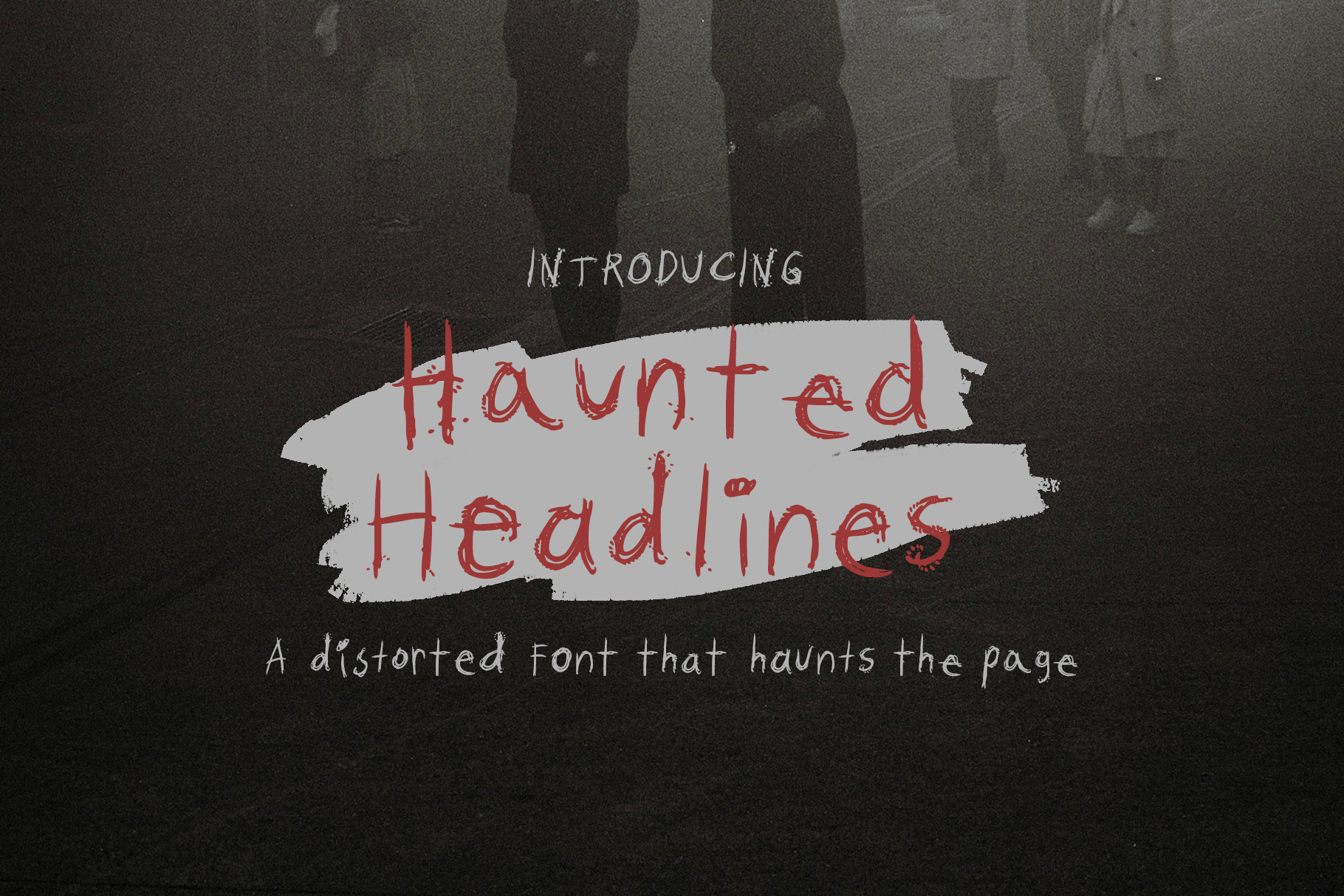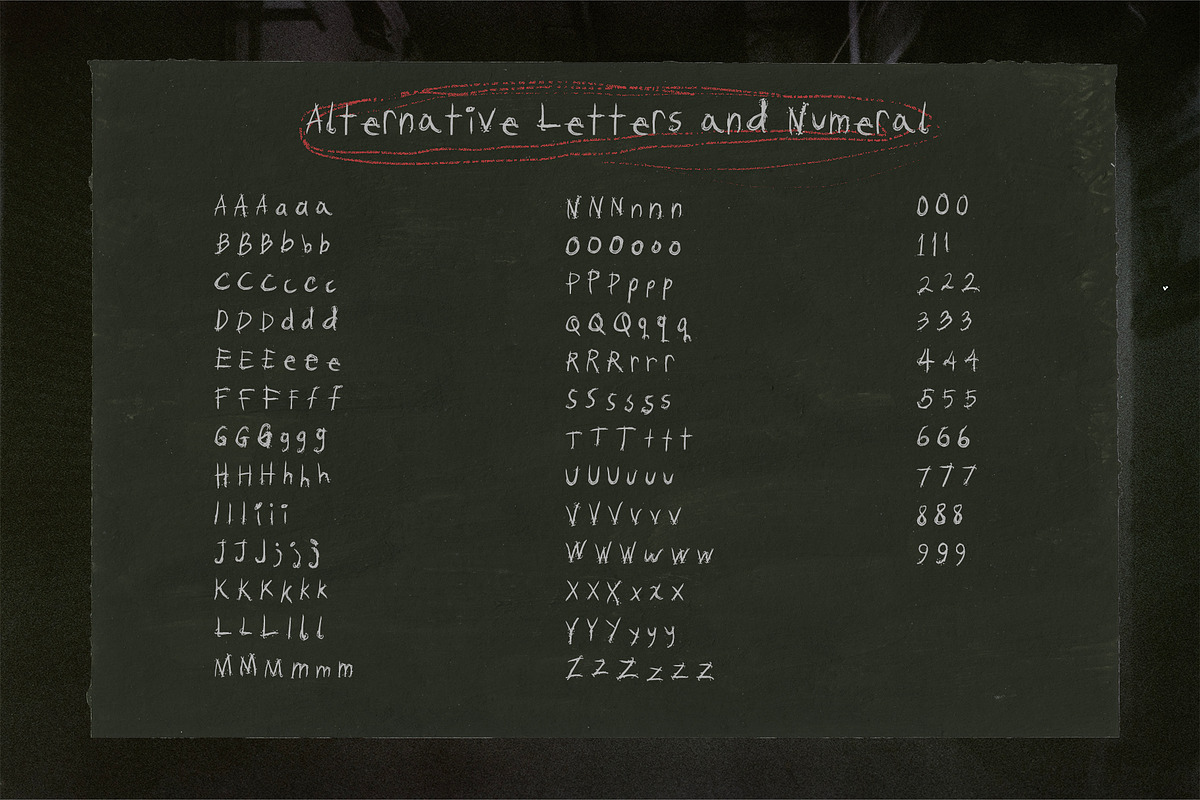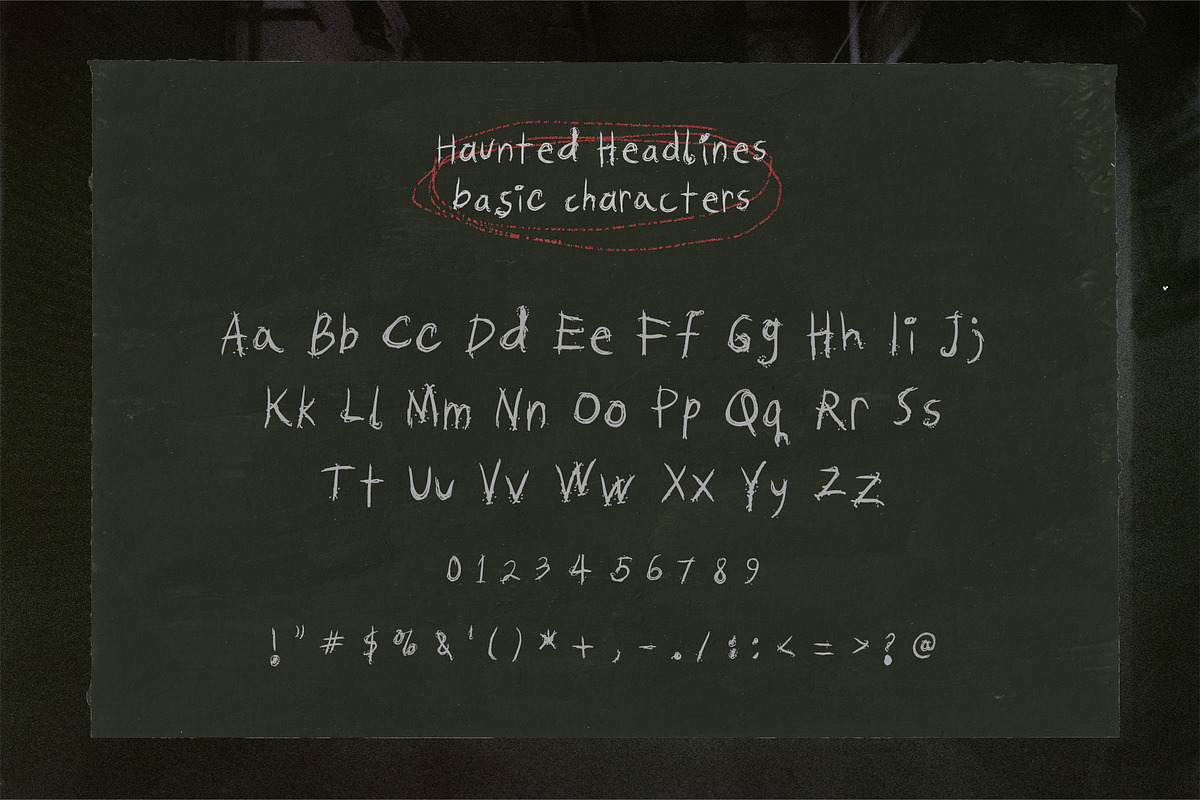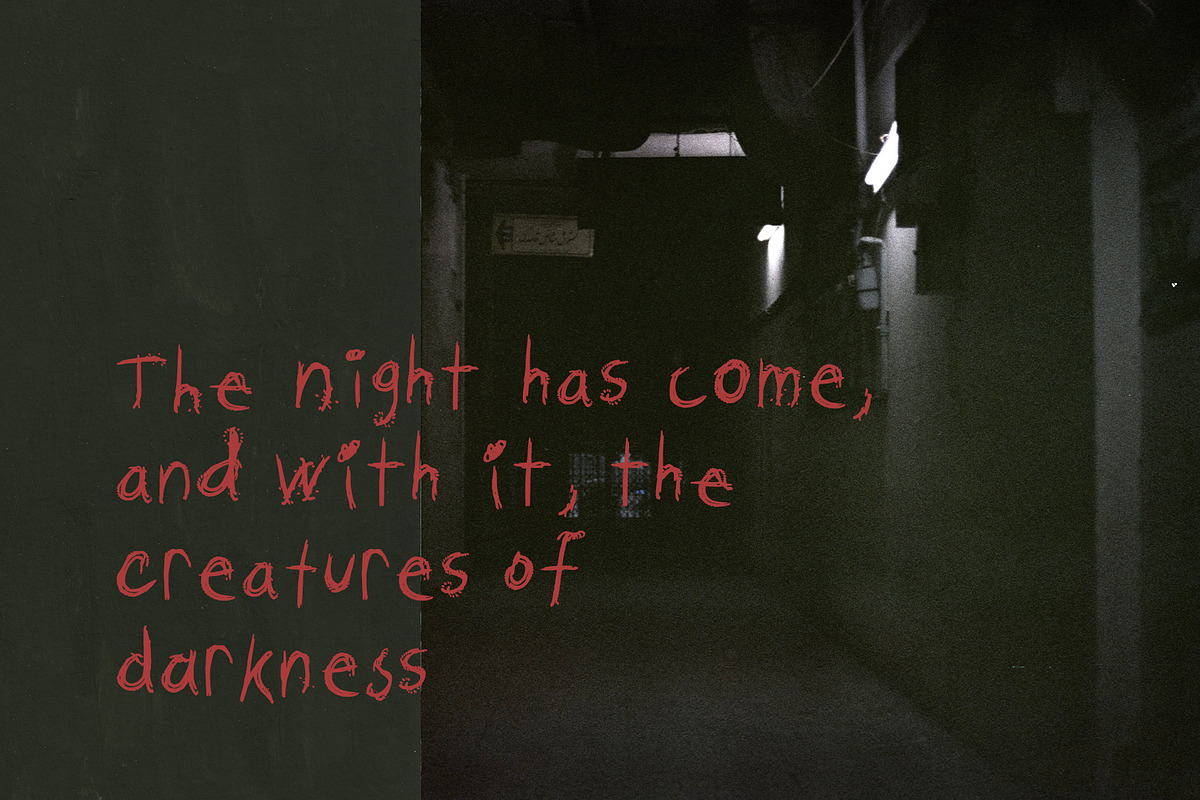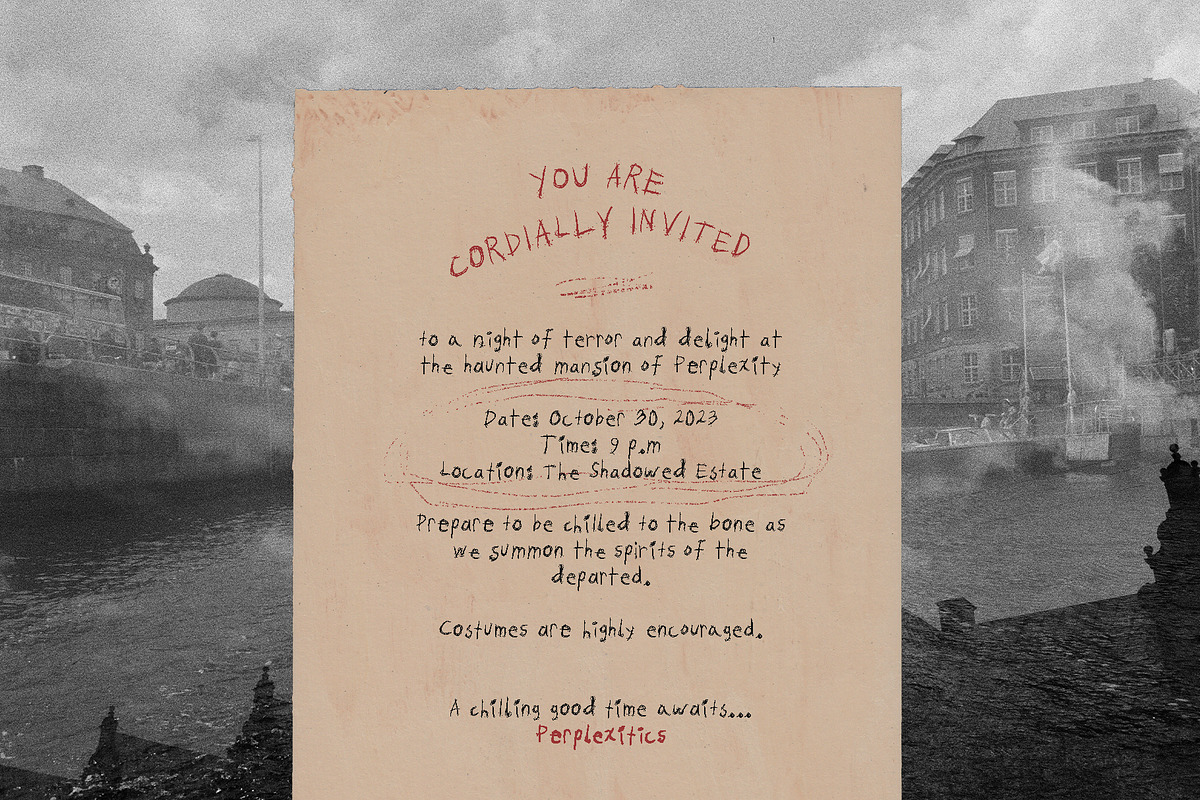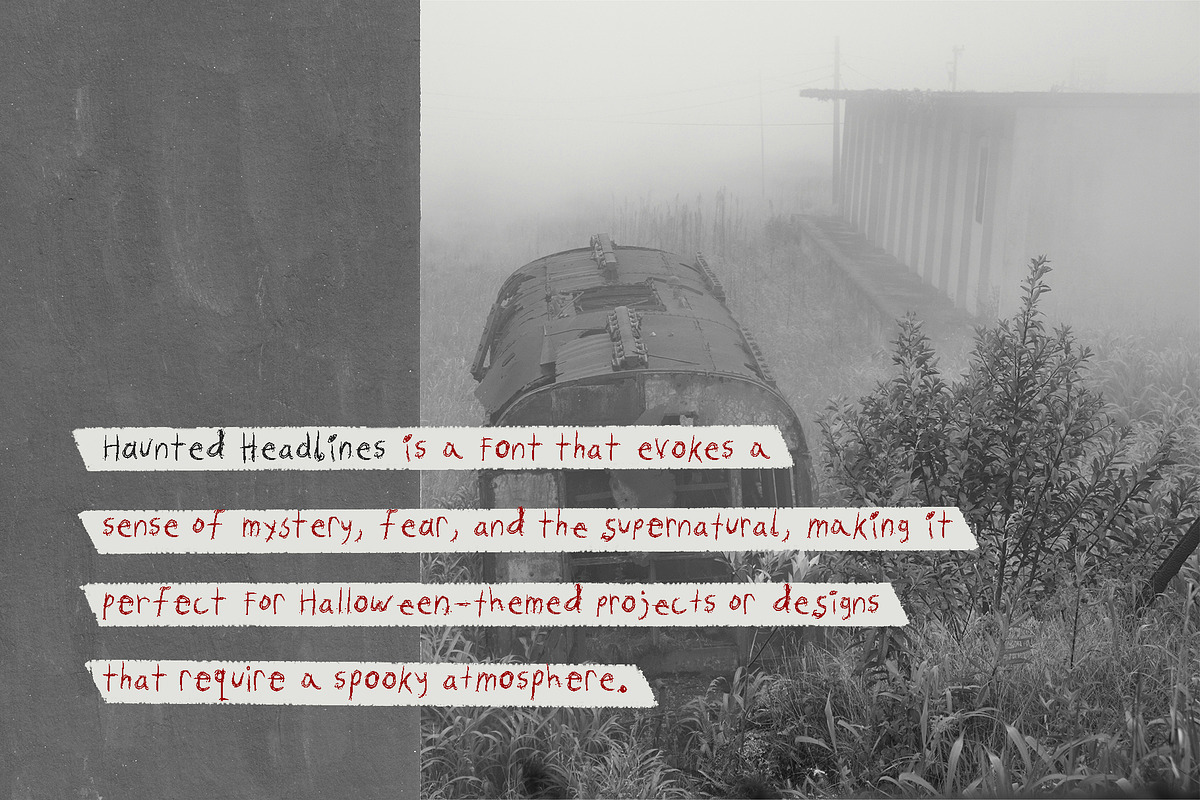
Haunted Headlines Horror Font
Haunted Headlines is a font that evokes a sense of mystery, fear, and the supernatural, making it perfect for Halloween-themed projects or designs that require a spooky atmosphere.
Haunted Headlines Font is packed with everything you need, including uppercase and lowercase letters, numbers, and punctuation. Consists of 246 glyphs and alternate characters.